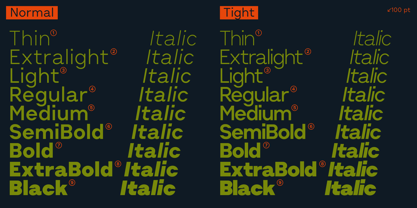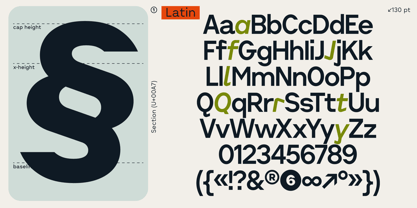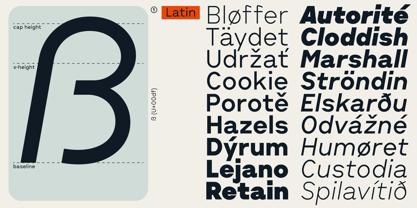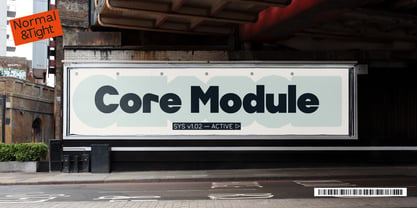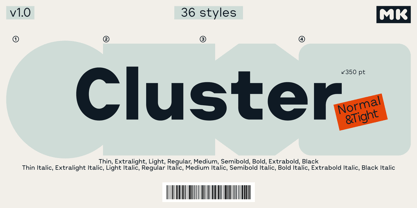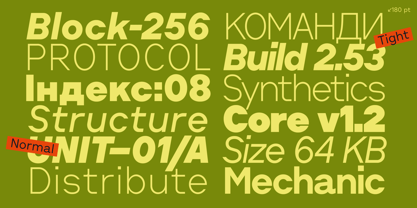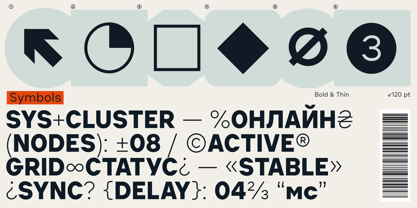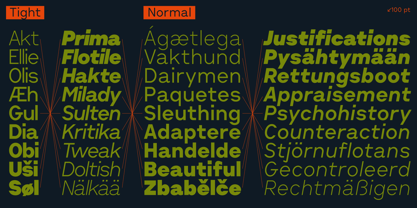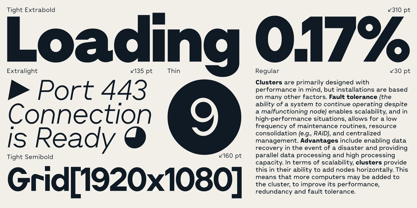
Cluster
by Kobuzan
The Cluster Font Family was designed by Maksym Kobuzan and published by Kobuzan. Cluster contains 38 styles and family package options. More about this family
Cluster is an industrial geometric sans shaped at the intersection of utilitarian sans-serifs from the late 19th century and the systematic approach of mid-20th-century European modernist typography. Cluster originally began as a major update to Klaster Sans, but quickly outgrew its initial scope and evolved into a distinct typeface family of its own. Cluster is built around a sense of technical functionality. A relatively wide default spacing creates a distinctive effect — the text resembles the lettering found in engineering drawings, technical diagrams, or early prototypes. This openness reinforces a feeling of clarity, precision, and rational structure. The letterforms retain a subtle sharpness that adds clarity to the silhouettes. Certain details reinterpret elements of 19th-century grotesques: the tails in a, f, and j are transformed into rigid, almost mechanical hooks. They act as restrained accents, adding character and a faint Bauhaus-like plasticity without disrupting the overall neutrality of the system. Another distinctive feature is the treatment of capitals. Compared to the lowercase, the uppercase letters are slightly condensed, creating a more compact rhythm in all-caps settings. Their proportions are loosely inspired by the lettering found on license plates and road signage, reinforcing the utilitarian tone of the design. The family consists of 36 styles and is divided into two versions: Cluster Normal and Cluster Tight, each with 9 weights and matching italics. Normal maintains a more open spacing that emphasizes the structural clarity of the text. Tight features carefully reworked compact spacing designed for large sizes — helping to avoid the optical defects that often appear when tracking is simply reduced in design software. A set of alternate characters further develops the idea of the characteristic hooks, adding more dynamism and expressiveness to the forms. A separate version, Cluster Edge, explores this idea further, making these rigid hooks the primary stylistic principle and giving the design a more expressive character.
Designers: Maksym Kobuzan
Foundry: Kobuzan